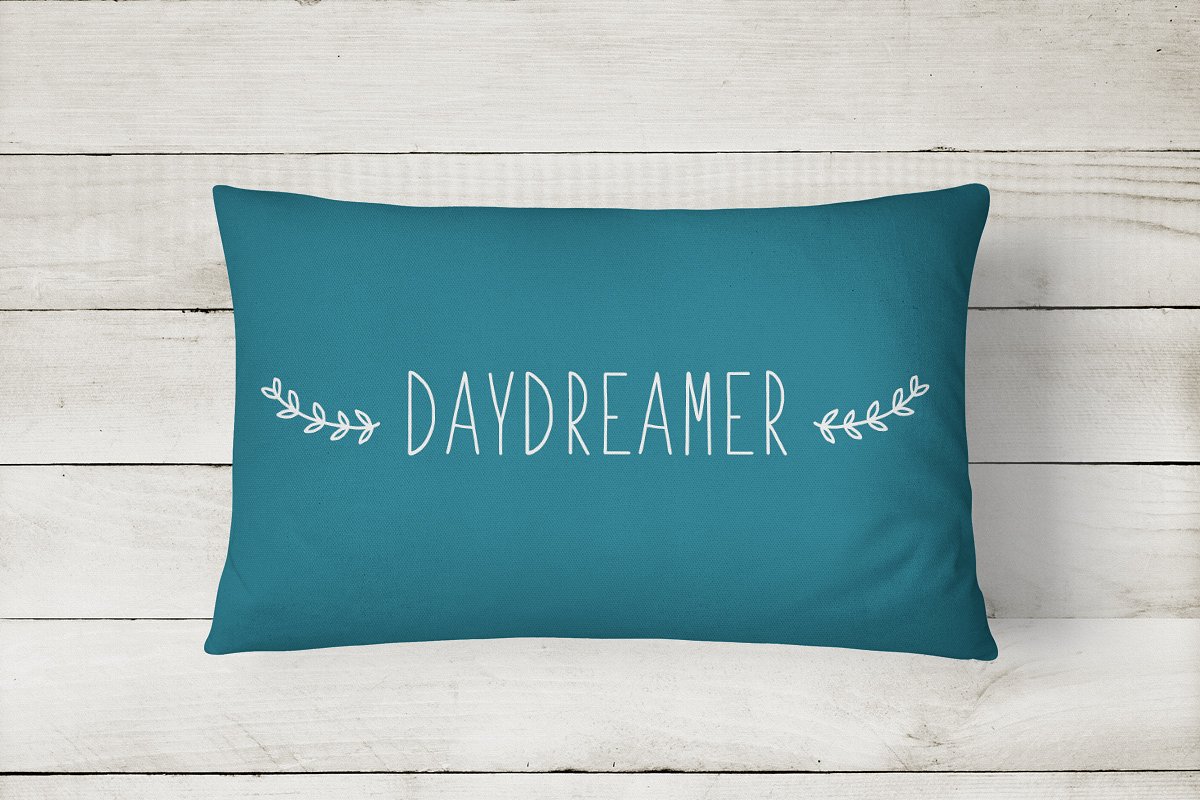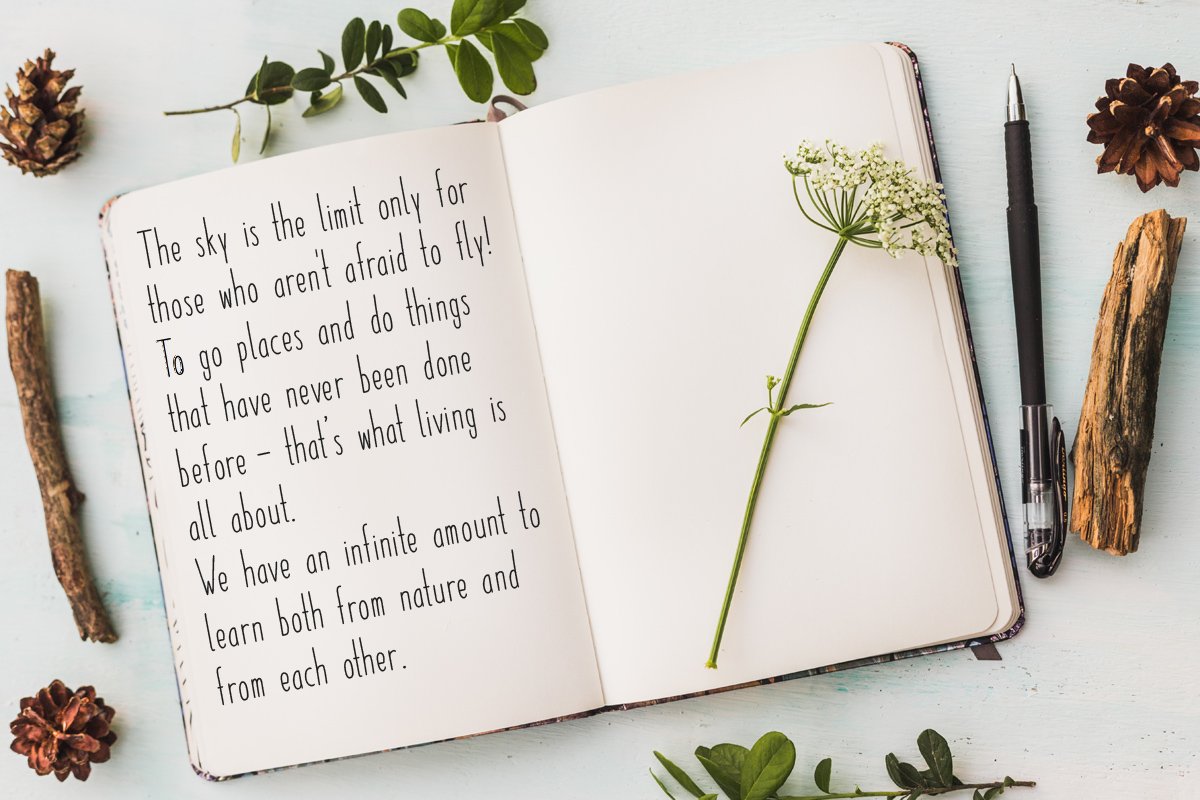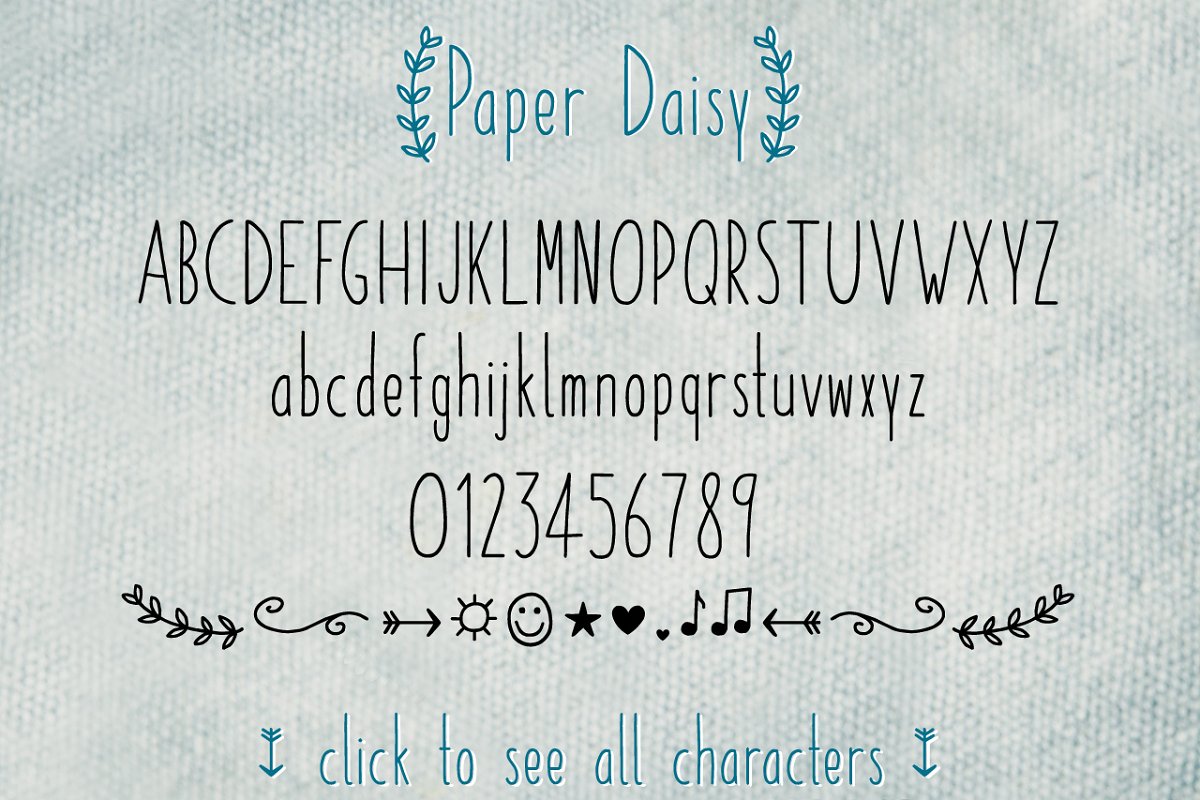
About the Paper Daisy Font
Paper Daisy is a handwritten condensed font with love for detail, It’s perfect to add a neat and individual look to your things, The font includes some cute symbols, To add them to your text just set the font to Paper Daisy and then copy and paste the following symbols (try it below):[ ]►◄▲▼↑↓→←☼☺♥•♪♫★Tip: If you’re using an Adobe program like Photoshop, Illustrator or InDesign, set the kerning value to metric / auto to apply the kerning embedded in the font